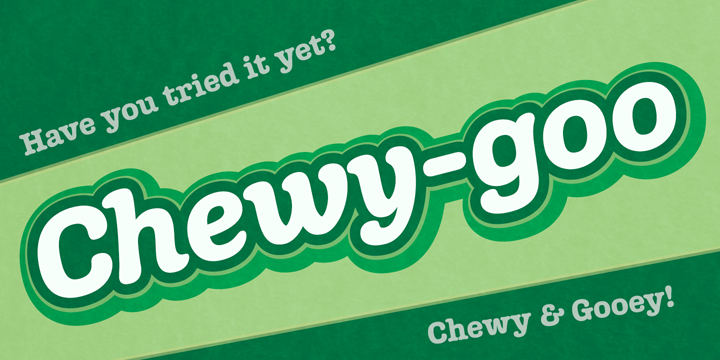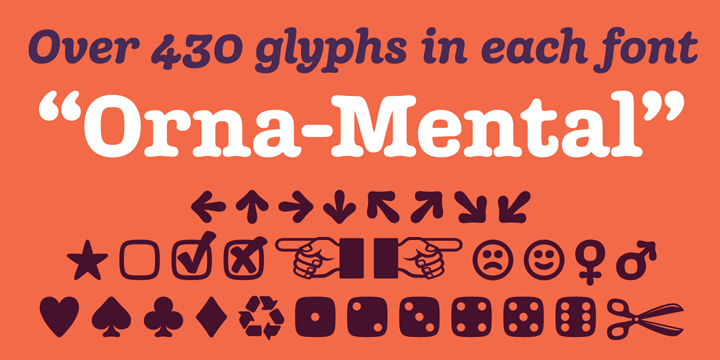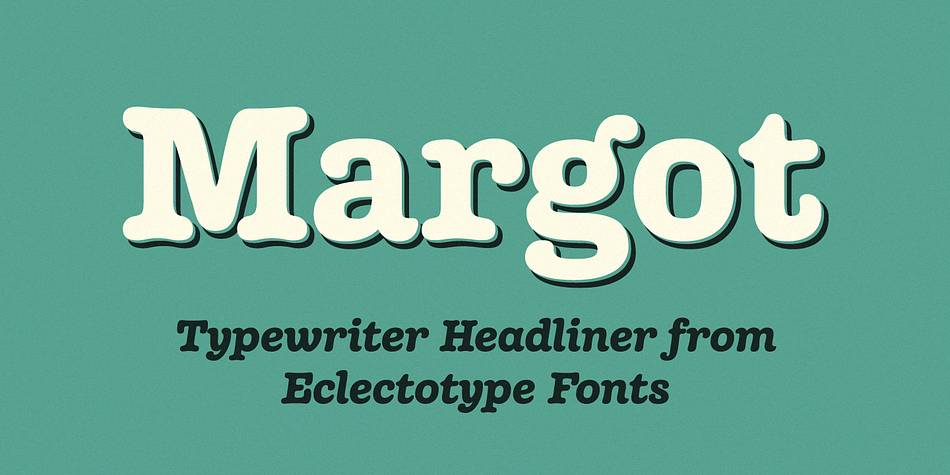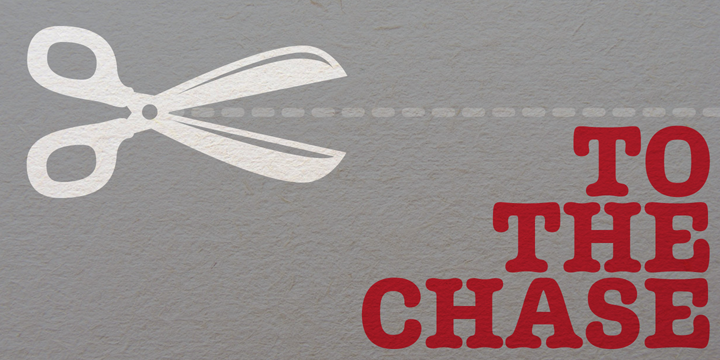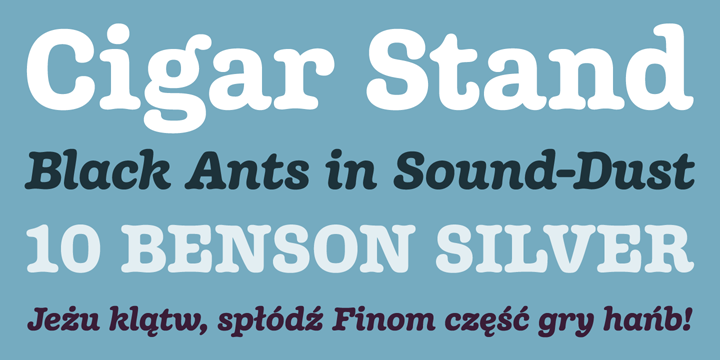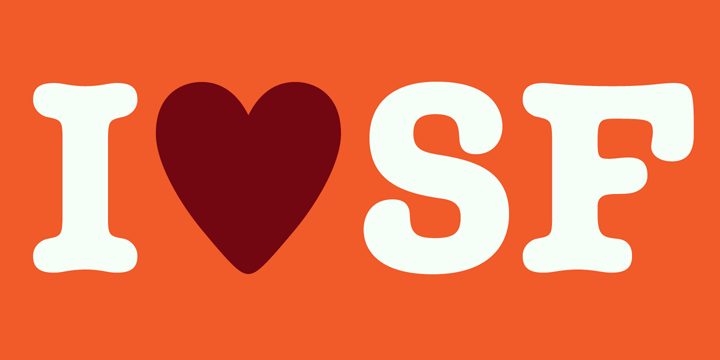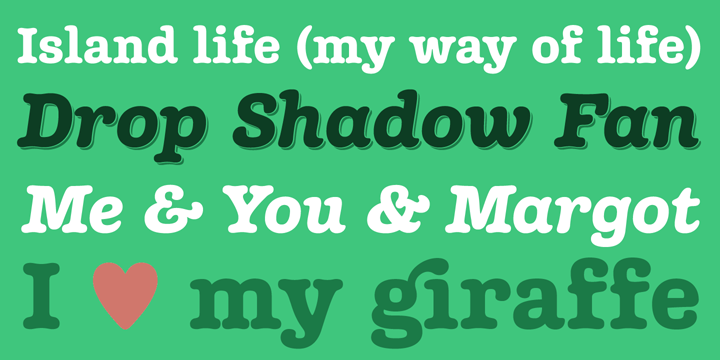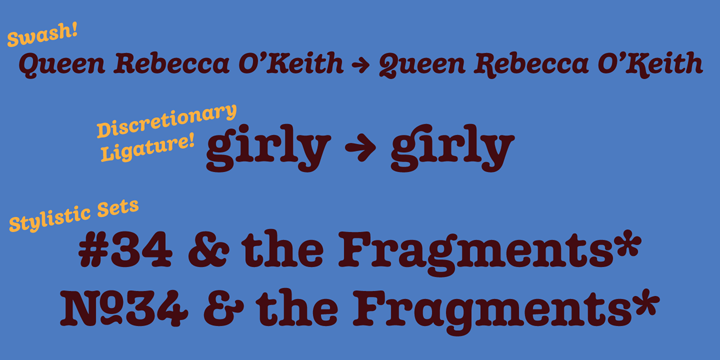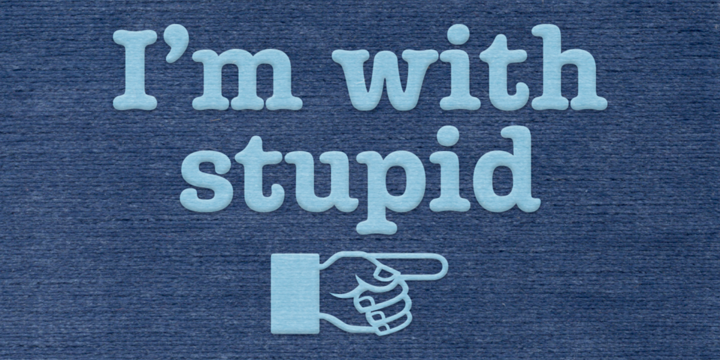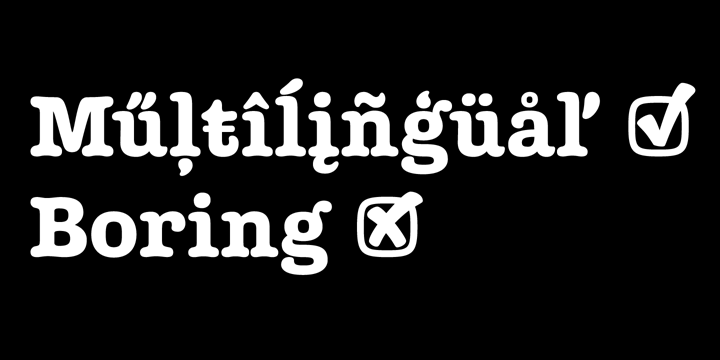
Margot
Margot is a display serif font family. This typeface has two styles and was published by Schizotype Fonts.
A bold single weight display typeface in roman and italic styles, Margot is boisterous but cuddly; warm but impactful.
Margot comes fully loaded with a bunch of esoteric dingbats (grouped in the ornament feature), four figure styles (proportional- and tabular- lining, and proportional- and tabular- oldstyle), a spattering of swash capitals (K, Q and R), stylistic alternates and one discretionary gi ligature in the Roman.
Stylistic alternates are split into stylistic sets thus:
SS01 - alternate forms for ampersand and asterisk, and # changes to an attractive numero symbol.
SS02 - in the Roman, a and g change to single storey versions; in the italic, the ae digraph changes to a less ambiguous double storey version.
SS03 - the lining figure 3 gets changed to its alternate form.
SS04 - the lining figure 4 gets changed to its alternate form.
Margot is perfect for friendly headlines, logos, T-shirts (I love New York, perhaps?), food packaging and videogame apps.
Margot gets its name from my equally boisterous and cuddly cat.
Like a lovechild of American Typewriter and Cooper Black, typewritten in melted chocolate, this is Margot. A bold single weight display typeface in roman and italic styles, Margot is boisterous but cuddly; warm but impactful.
Margot comes fully loaded with a bunch of esoteric dingbats (grouped in the ornament feature), four figure styles (proportional- and tabular- lining, and proportional- and tabular- oldstyle), a spattering of swash capitals (K, Q and R), stylistic alternates and one discretionary gi ligature in the Roman.
Stylistic alternates are split into stylistic sets thus:
SS01 - alternate forms for ampersand and asterisk, and # changes to an attractive numero symbol.
SS02 - in the Roman, a and g change to single storey versions; in the italic, the ae digraph changes to a less ambiguous double storey version.
SS03 - the lining figure 3 gets changed to its alternate form.
SS04 - the lining figure 4 gets changed to its alternate form.
Margot is perfect for friendly headlines, logos, T-shirts (I love New York, perhaps?), food packaging and videogame apps.
Margot gets its name from my equally boisterous and cuddly cat. Enjoy!
Foundry Eclectotype Fonts